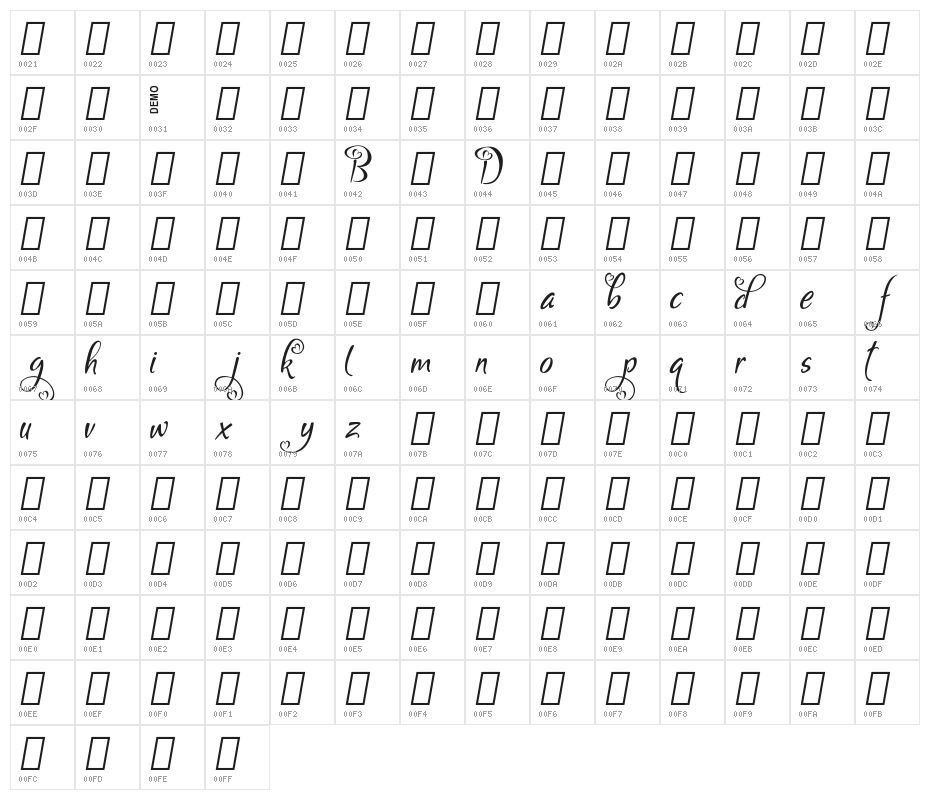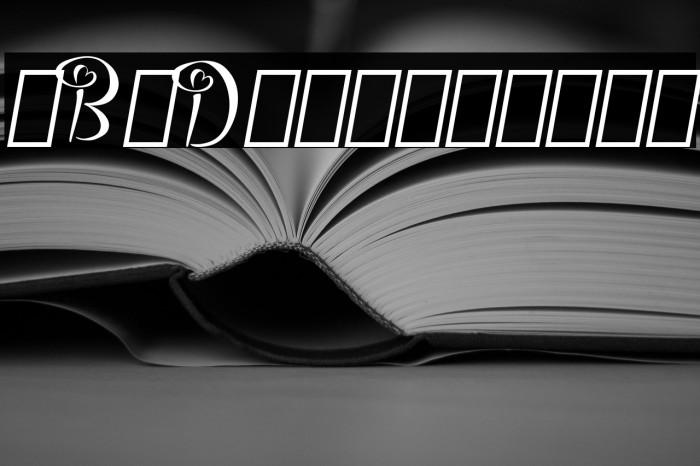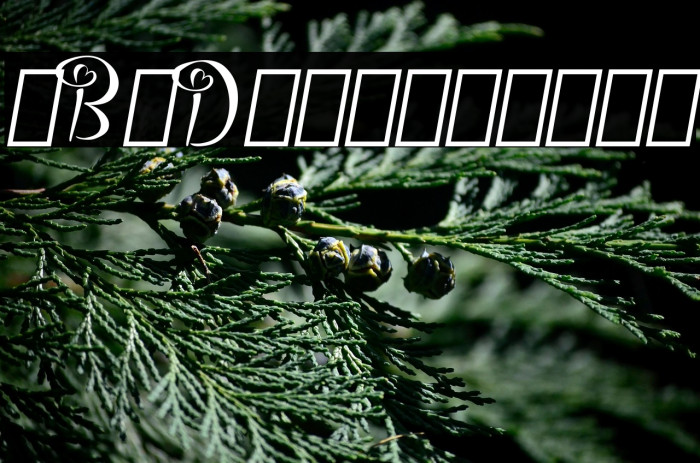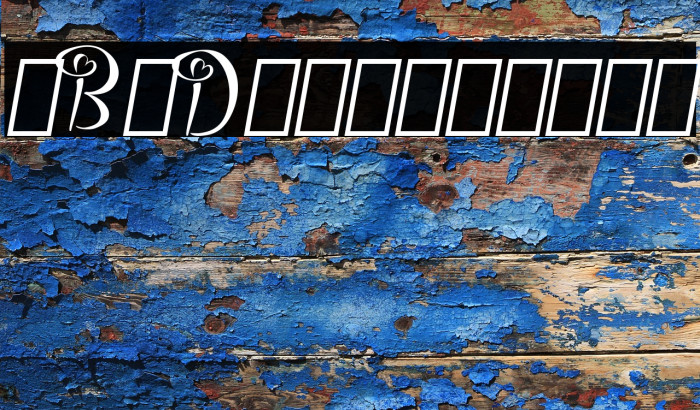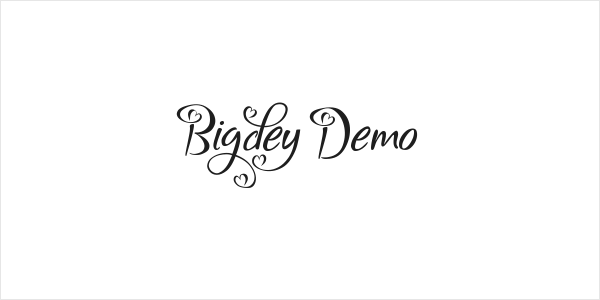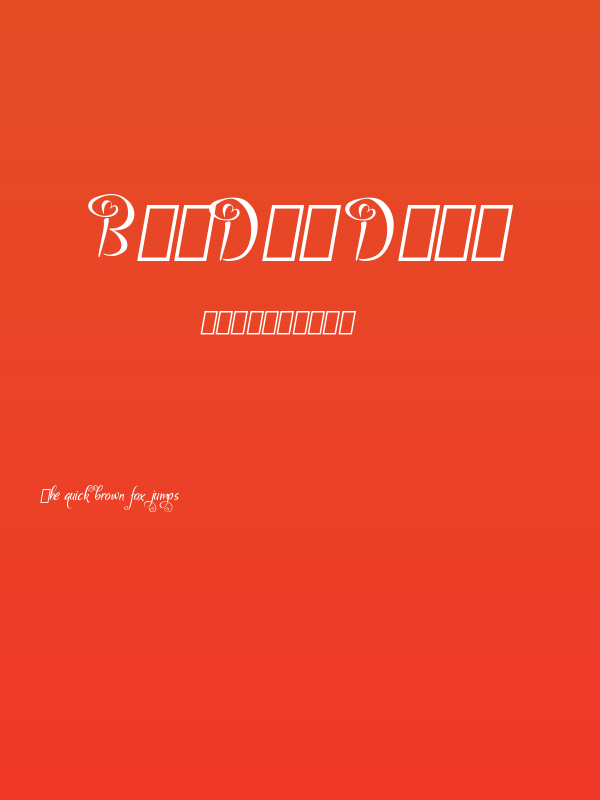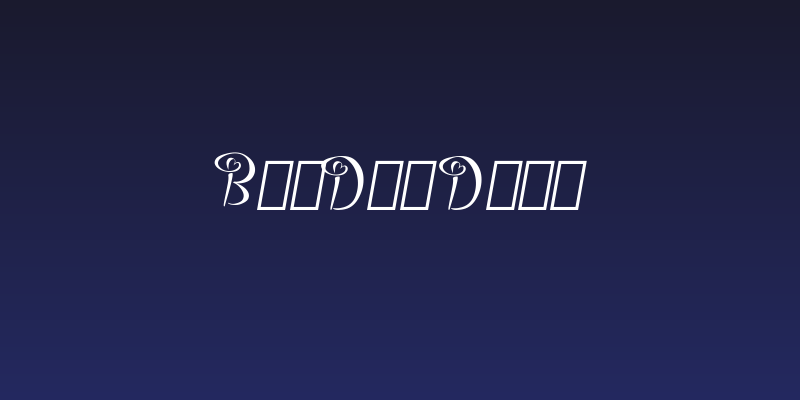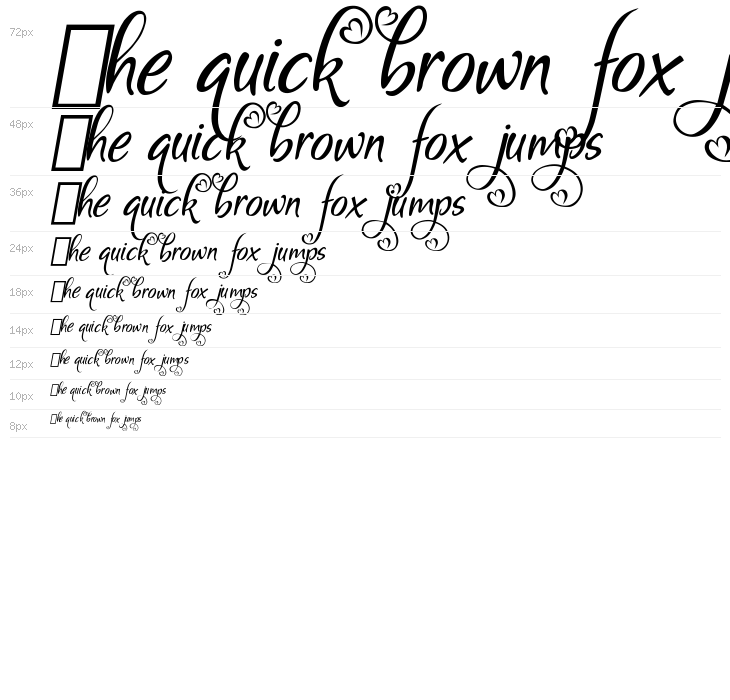
Bigdey Demo Font
Bigdey Demo Description
This font features an elegant and decorative script style, characterized by flowing, interconnected letters with ornate swirls and heart motifs. The lowercase letters are particularly elaborate, with extended strokes and embellishments that add a romantic and whimsical touch. The uppercase letters are bold and maintain a consistent height, providing a strong contrast to the delicate lowercase characters. The overall design is highly stylized, making it suitable for creative and expressive projects where a touch of elegance and flair is desired.
| Proposed Projects | Ideal for wedding invitations, greeting cards, branding for luxury products, and romantic-themed designs. |